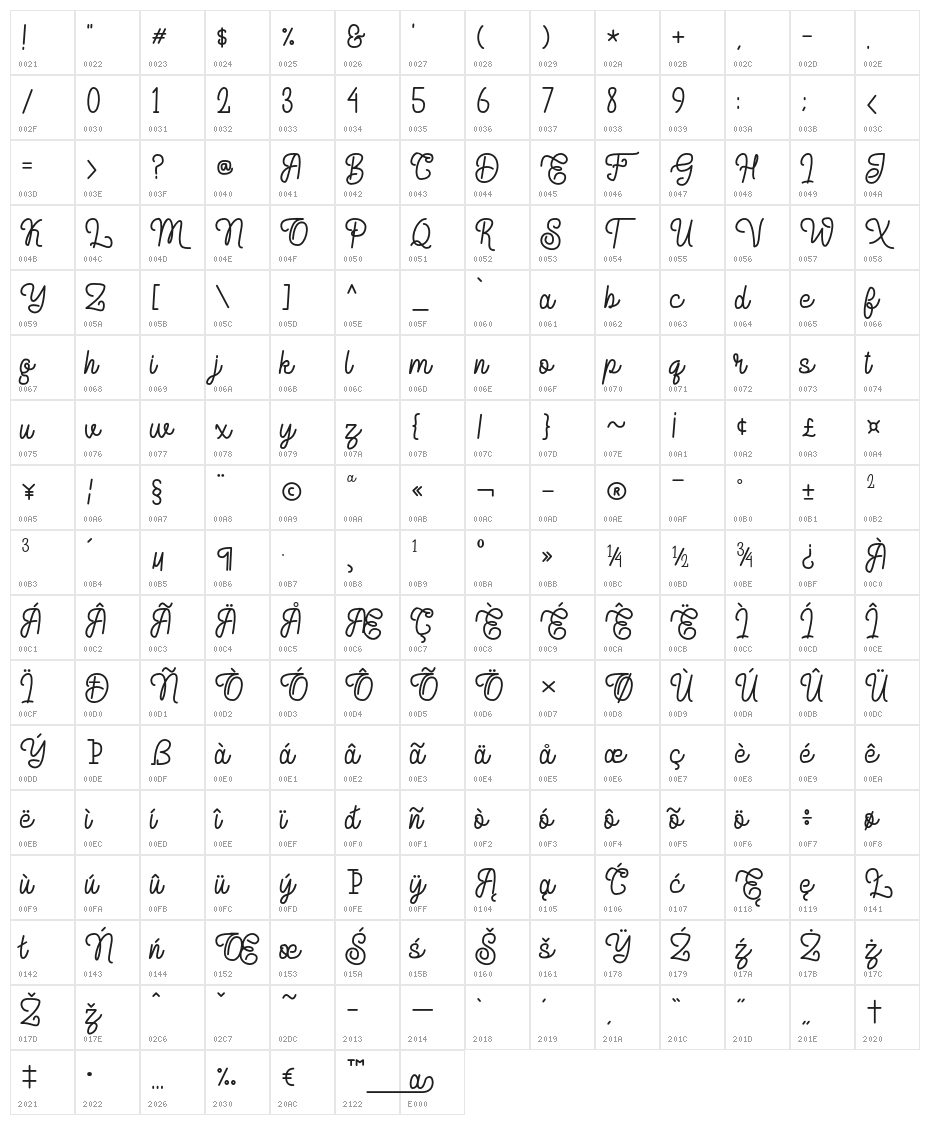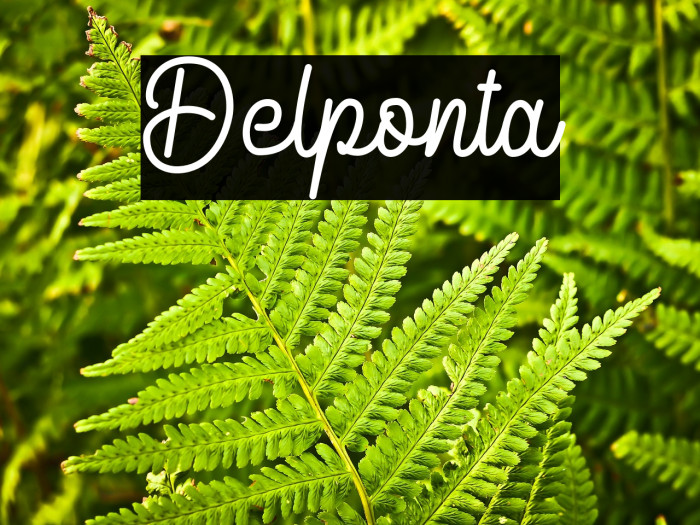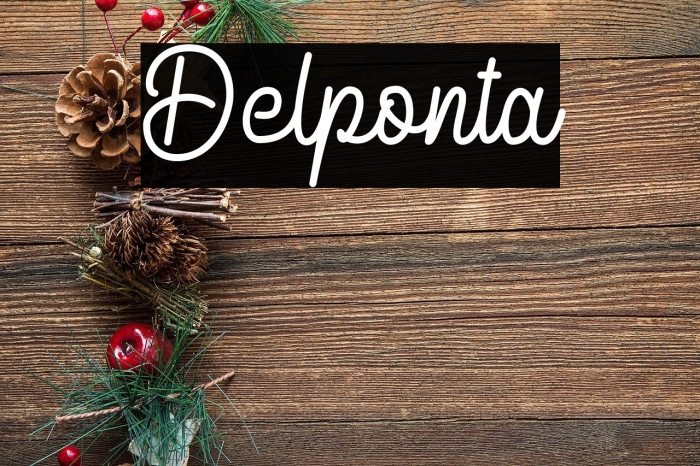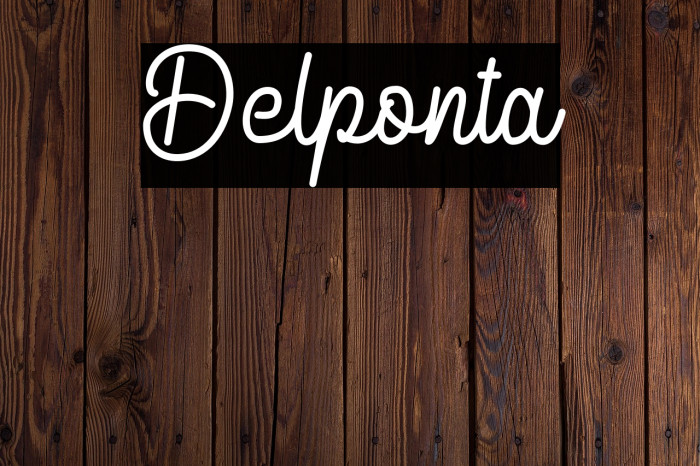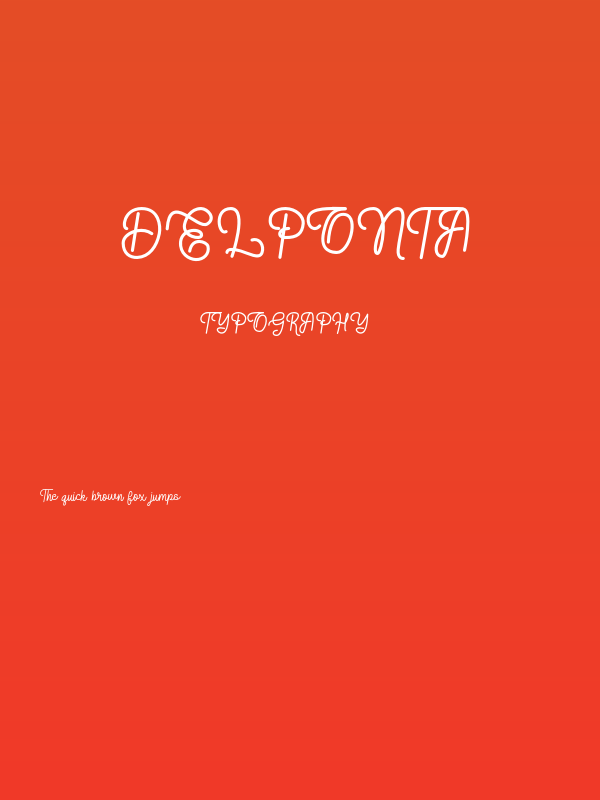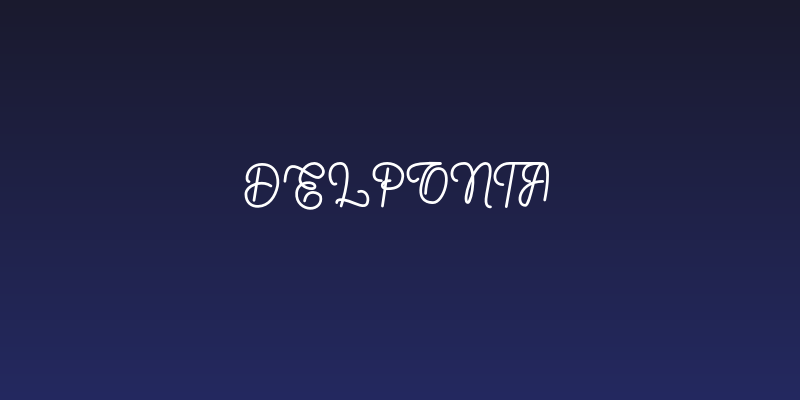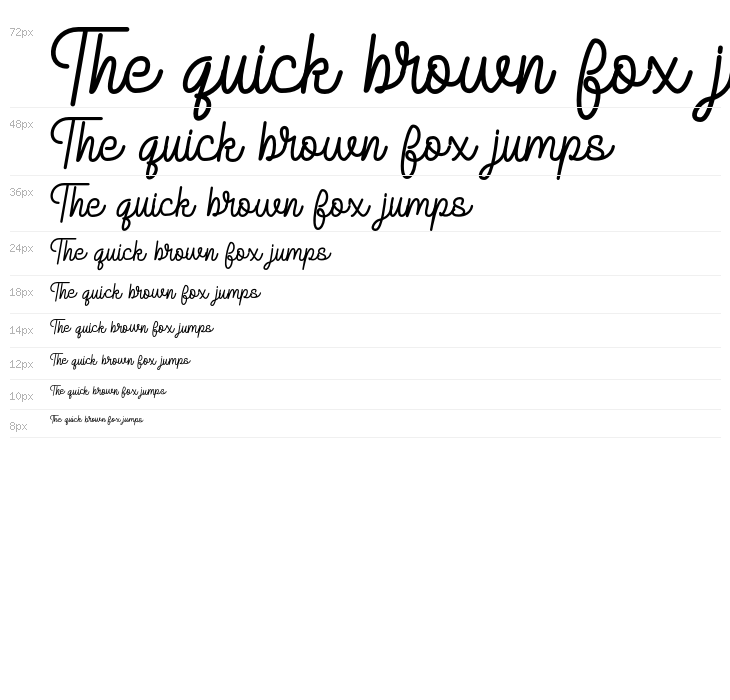
Delponta Font
Delponta Description
This font features a playful and elegant script style with a flowing, cursive design. The uppercase letters are characterized by their looping, interconnected strokes, giving a sense of continuity and fluidity. The lowercase letters maintain a similar style, with some letters like 'g' and 'y' having distinctive descenders that add to the font's charm. The numbers are clear and maintain the same playful style, making them easily readable. Special characters are well-integrated, ensuring consistency across all glyphs. This font's overall appearance is both sophisticated and approachable, making it suitable for a variety of creative applications.